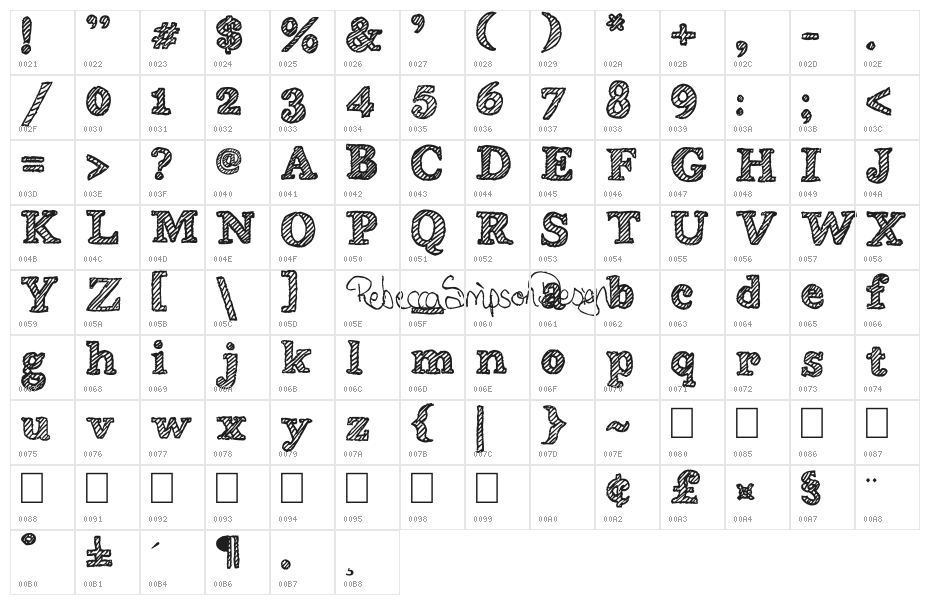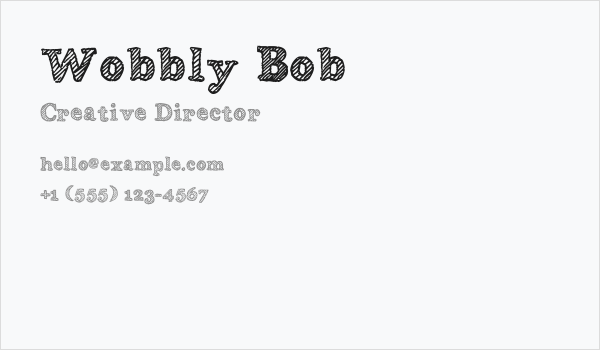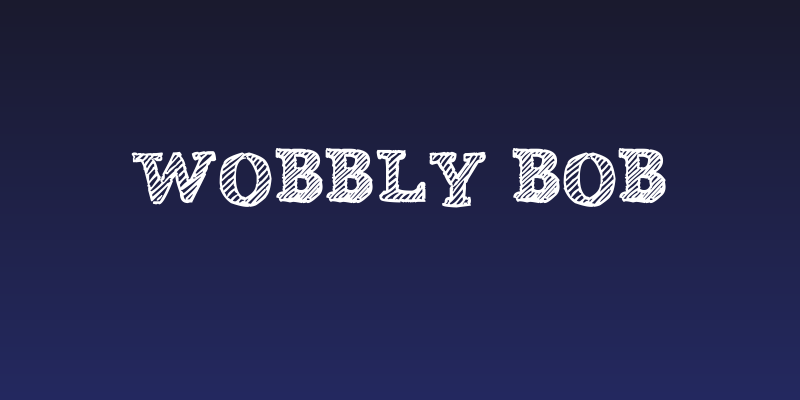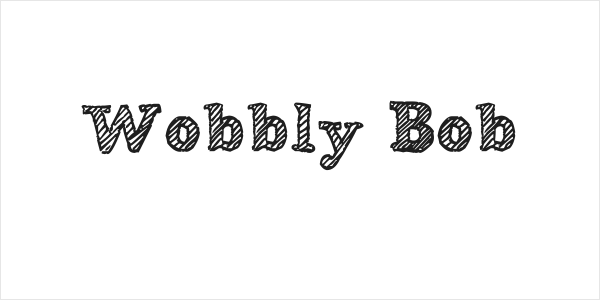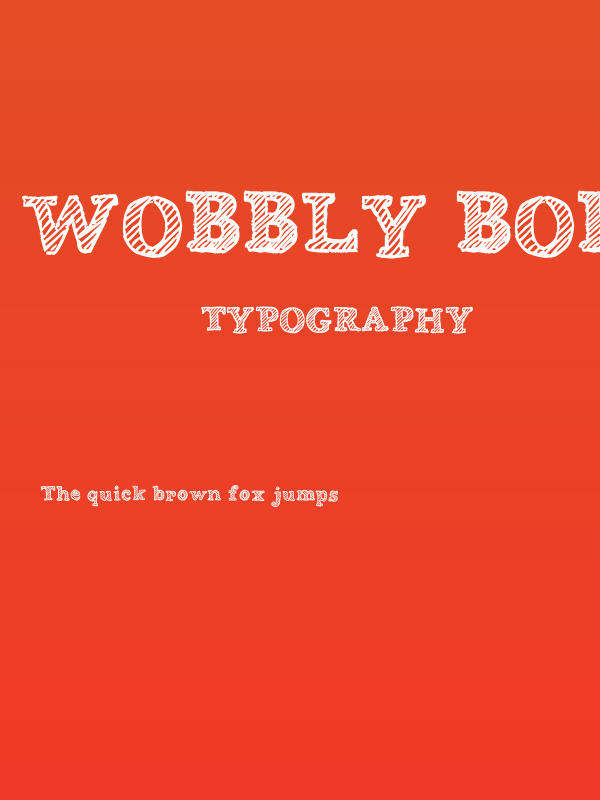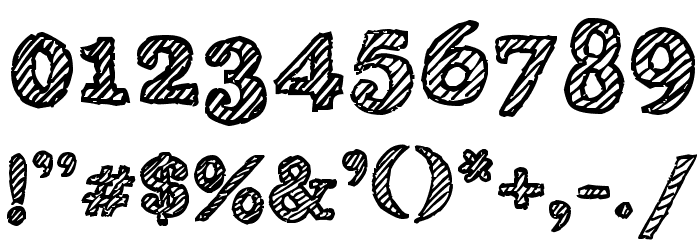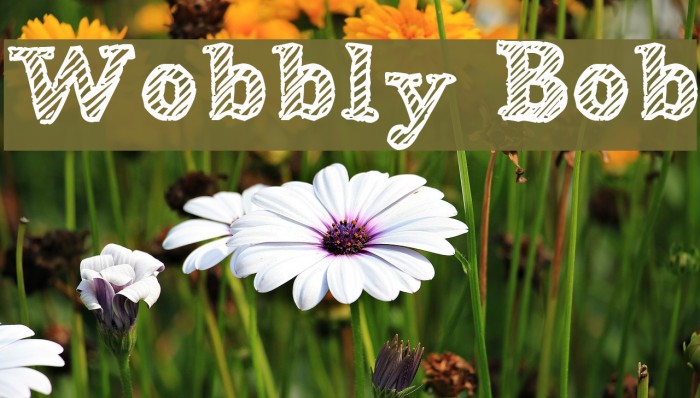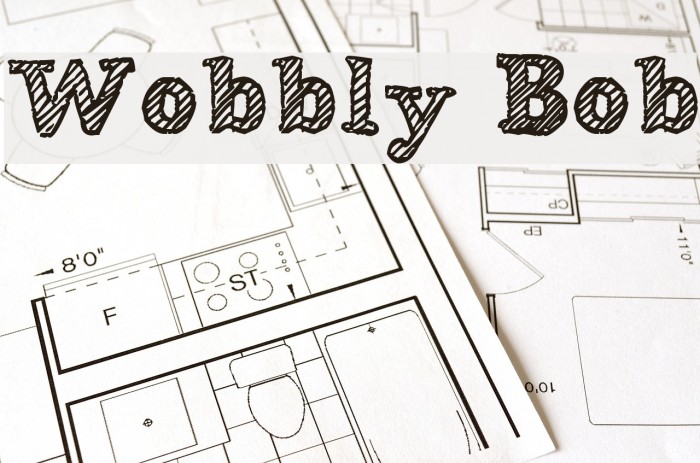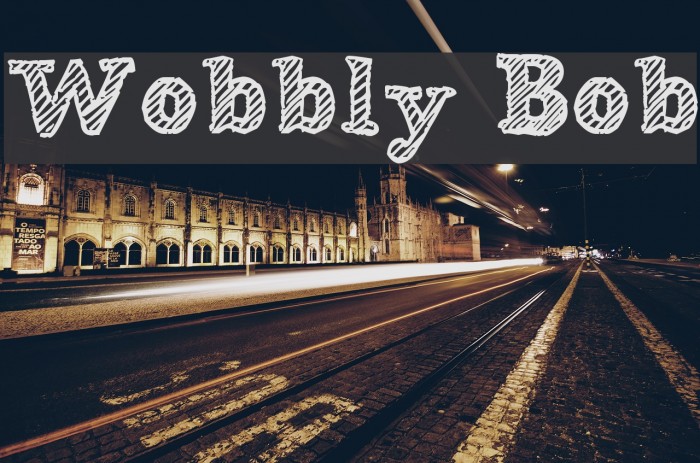
Wobbly Bob Font
Wobbly Bob Description
This font features a playful, hand-drawn style with a sketch-like appearance. Each character is filled with diagonal lines, giving it a textured, shaded look. The letters are bold and have a slightly irregular outline, adding to the casual and whimsical feel. The uppercase and lowercase letters maintain consistent proportions, while the numbers and special characters are equally stylized, ensuring a cohesive design. This font's unique aesthetic makes it stand out, ideal for projects that require a fun and informal touch.
| Proposed Projects | Ideal for children's books, playful branding, creative posters, and informal invitations. |